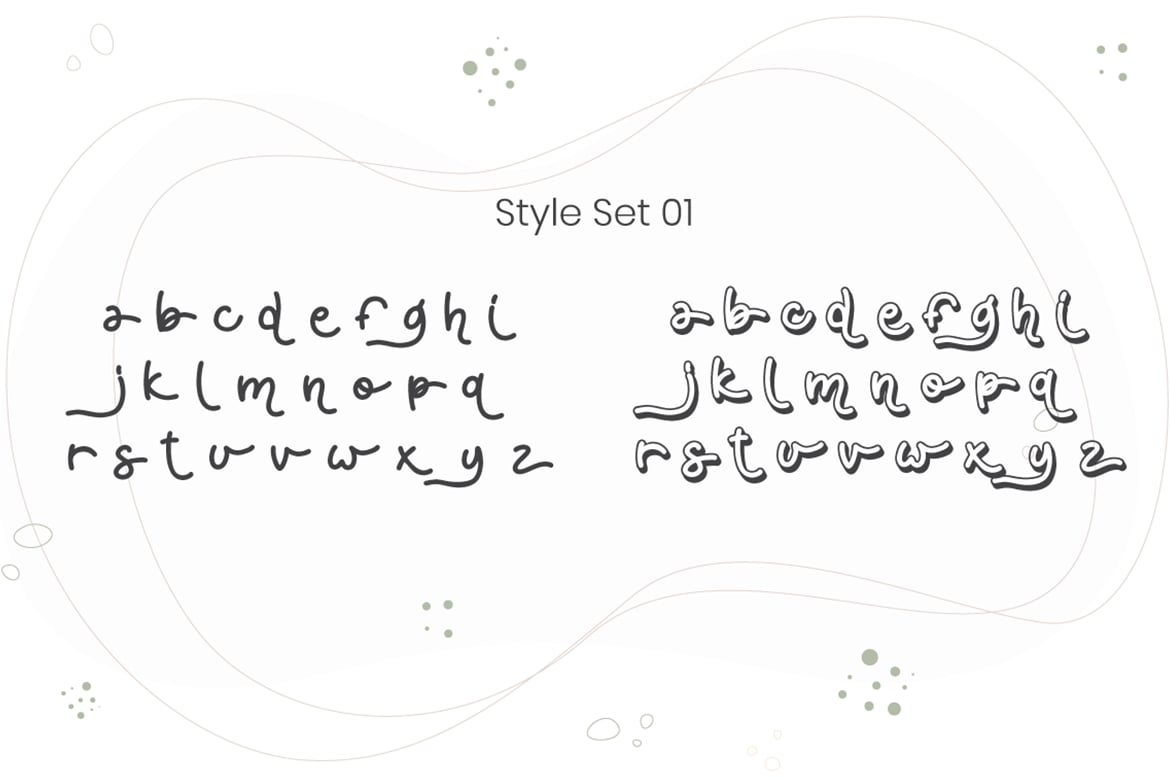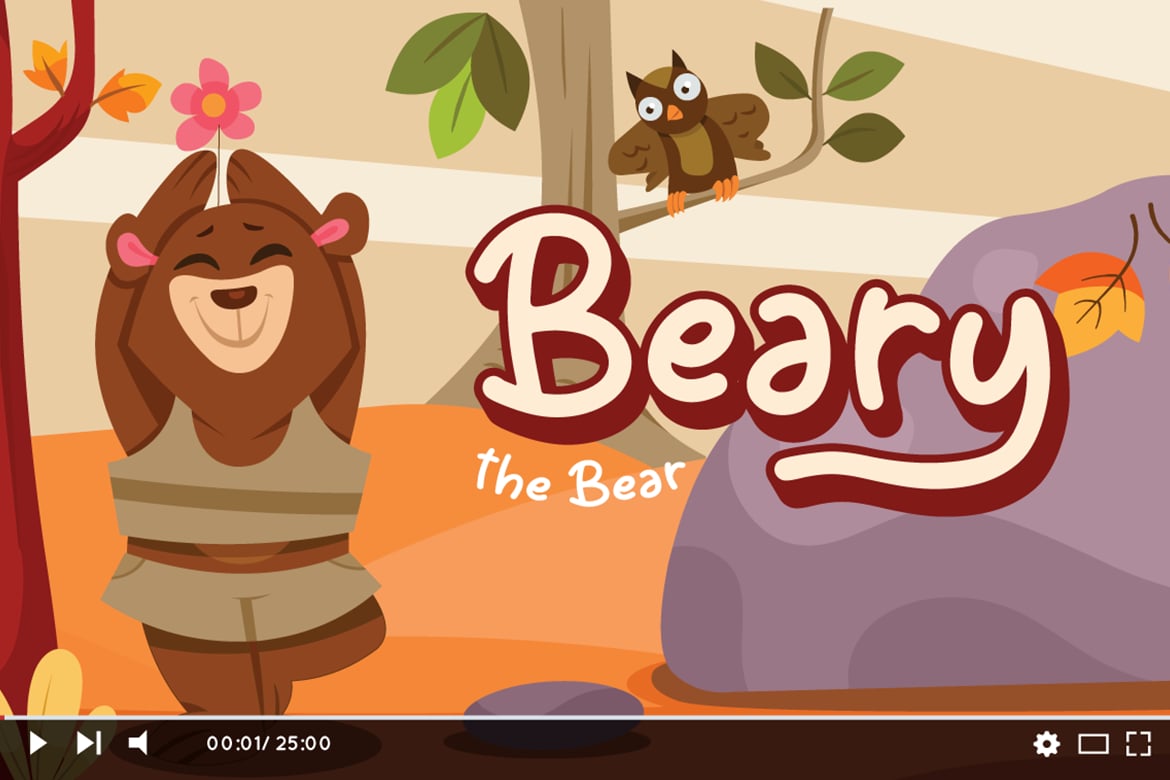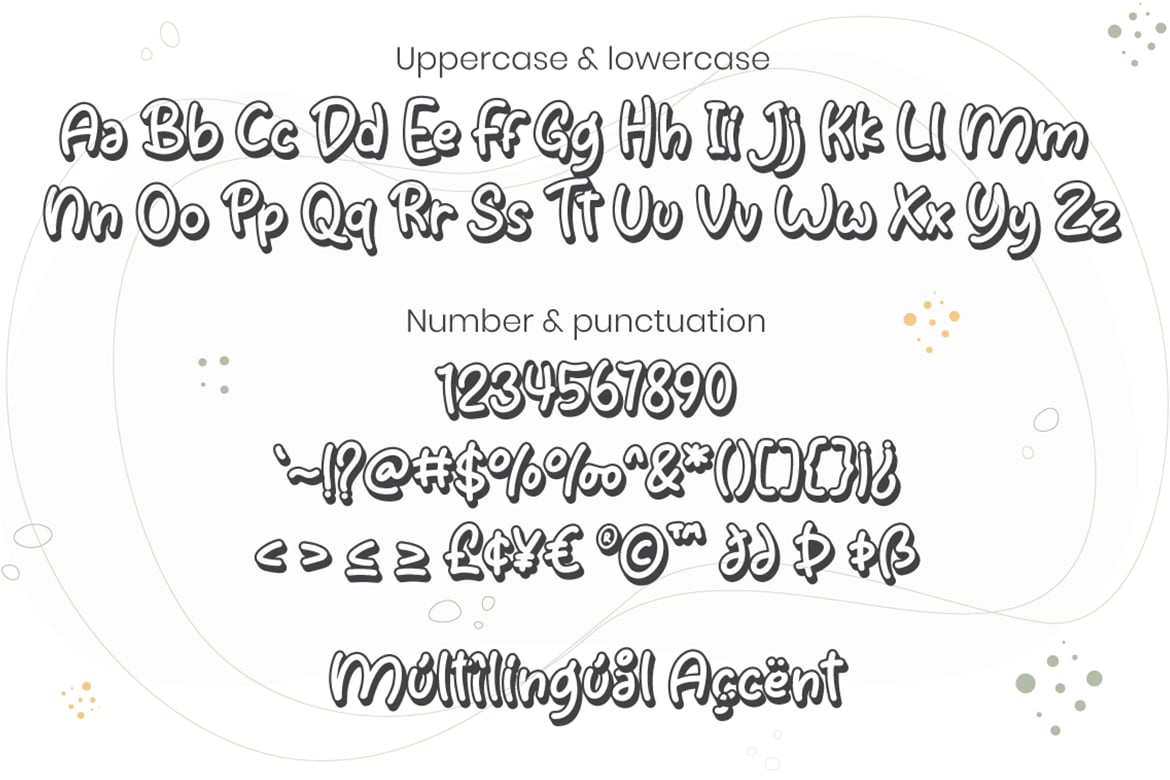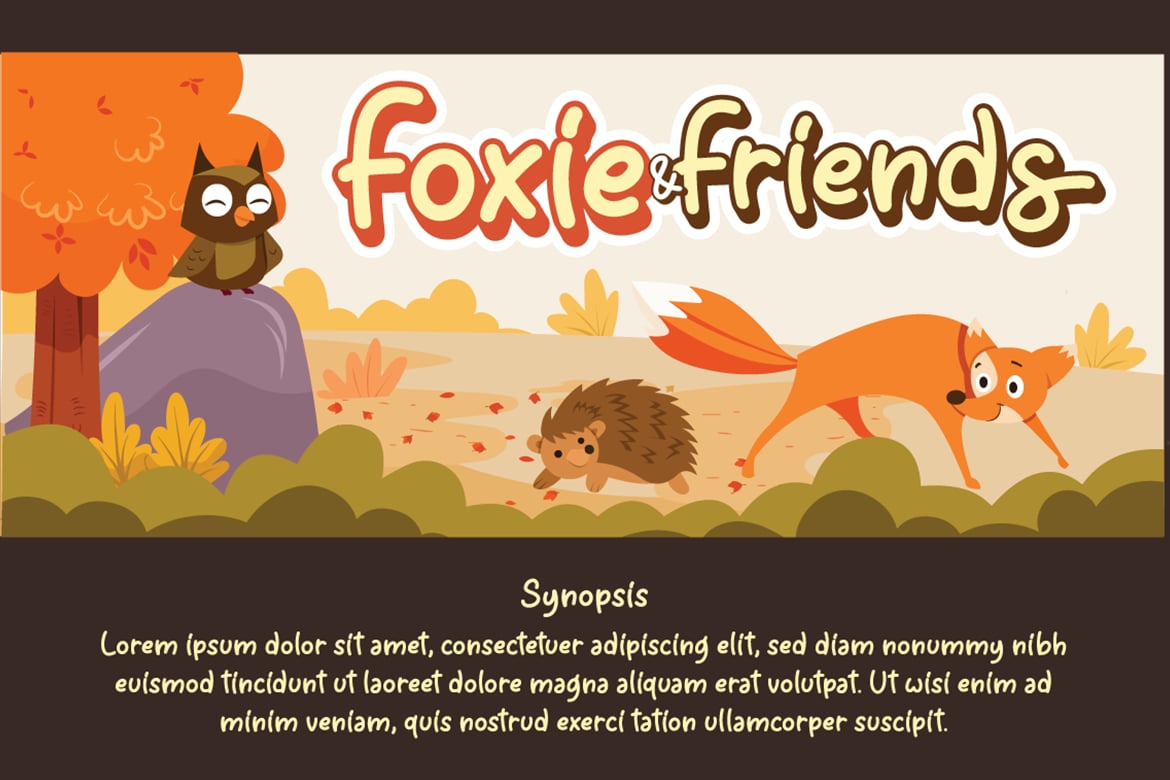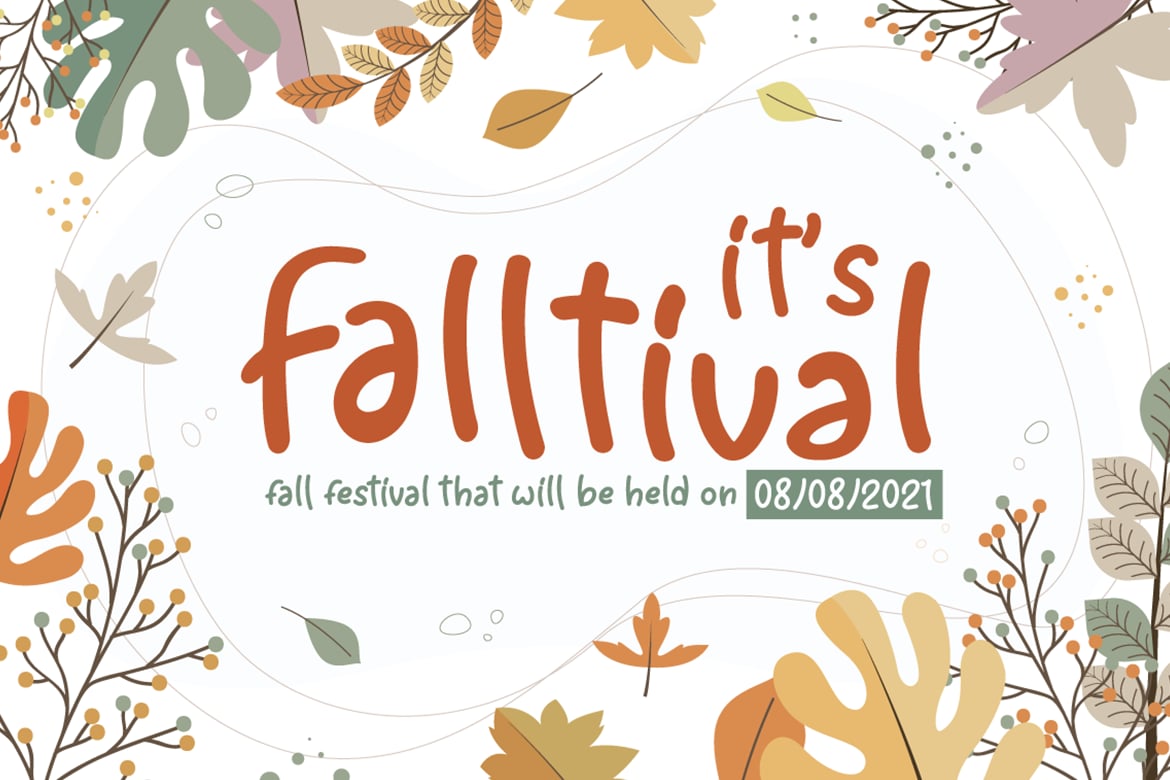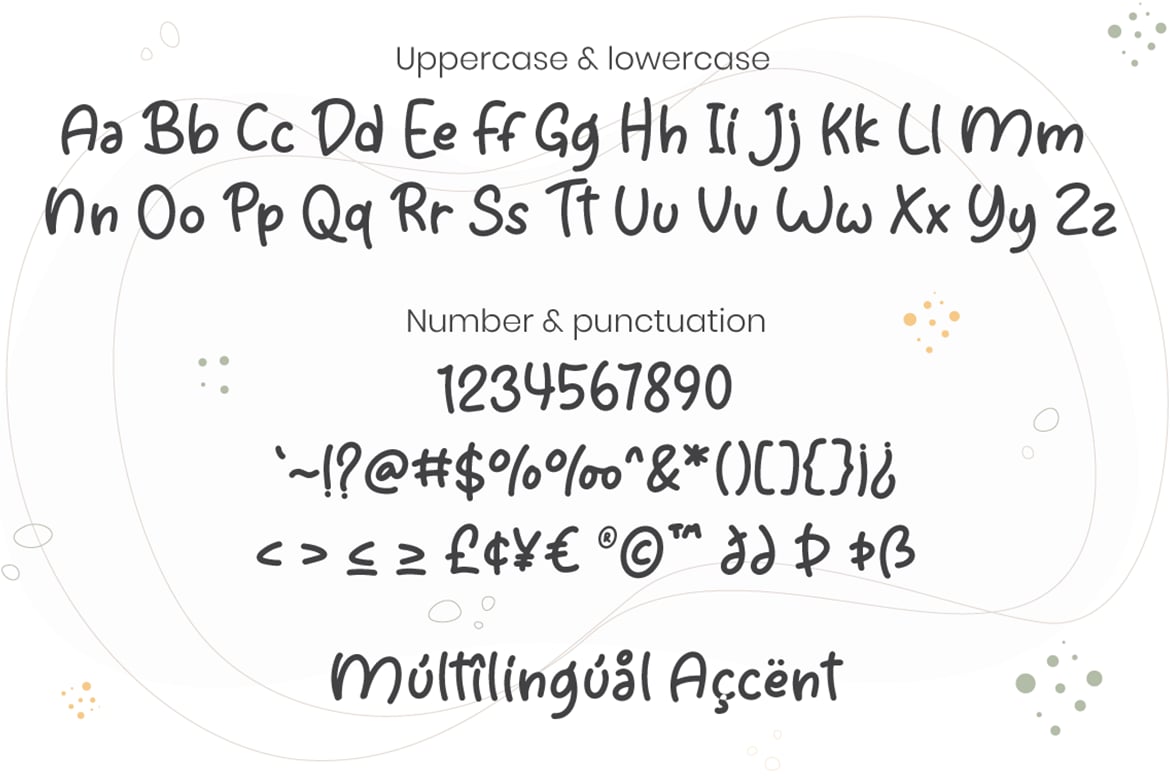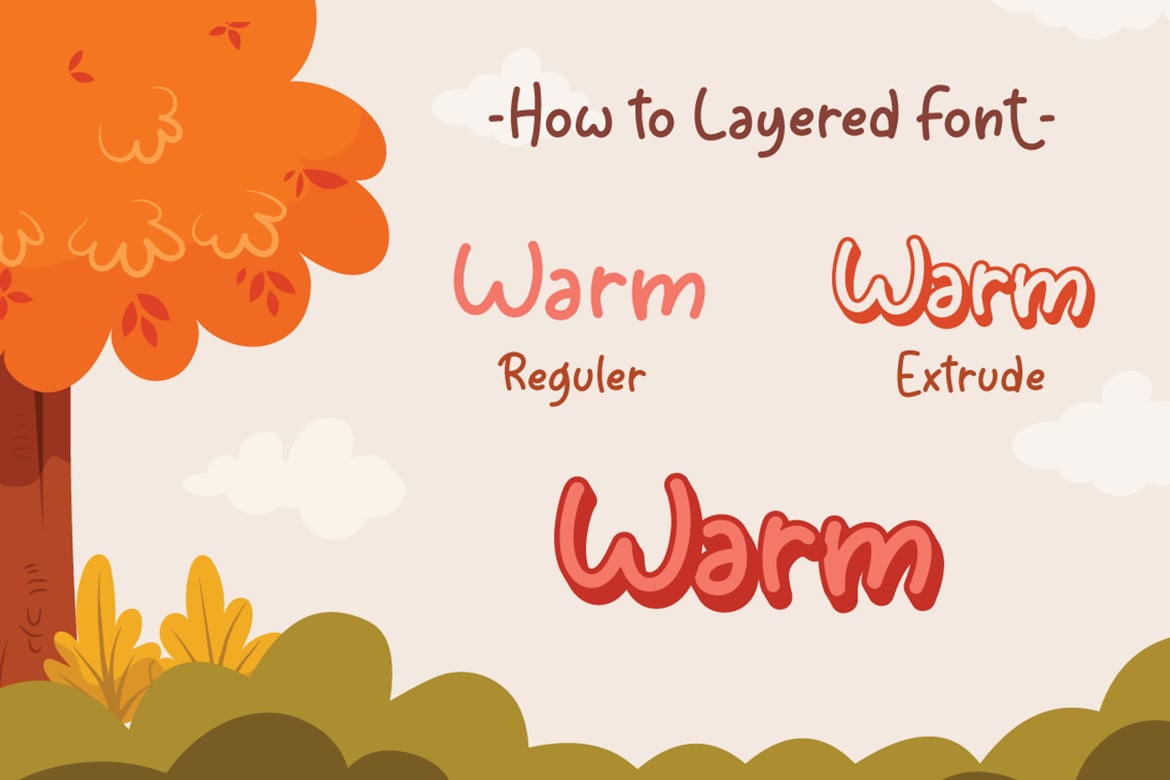
Agfolan – Layered Script Font
Agfolan is a layered script font with autumn or Fall theme, use it to create spectacular designs.
Combine it with Agfolan – Extrude to make an amazing 3D effect on your letter!
Agfolan perfect for Autumn or Fall promotion, branding, logo, invitation, stationery, social media post, product packaging, merchandise, blog design, game titles, cute style design, Book/Cover Title and more.